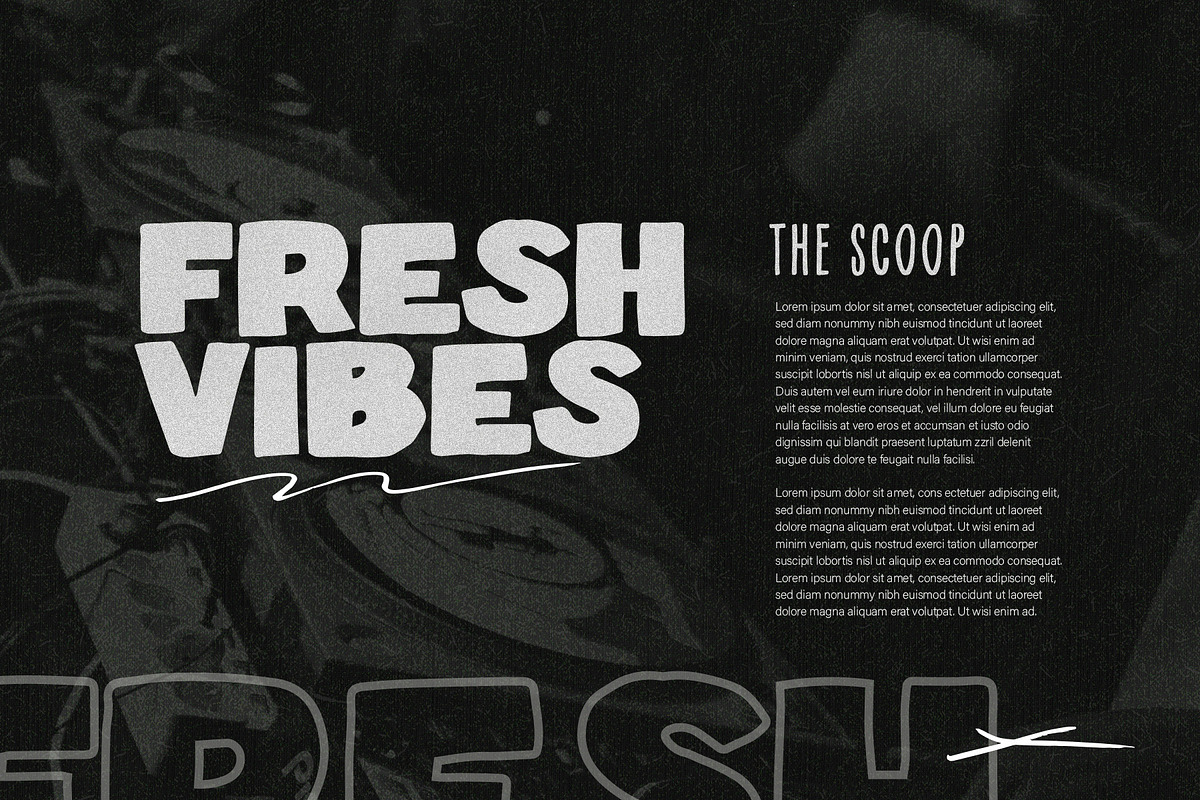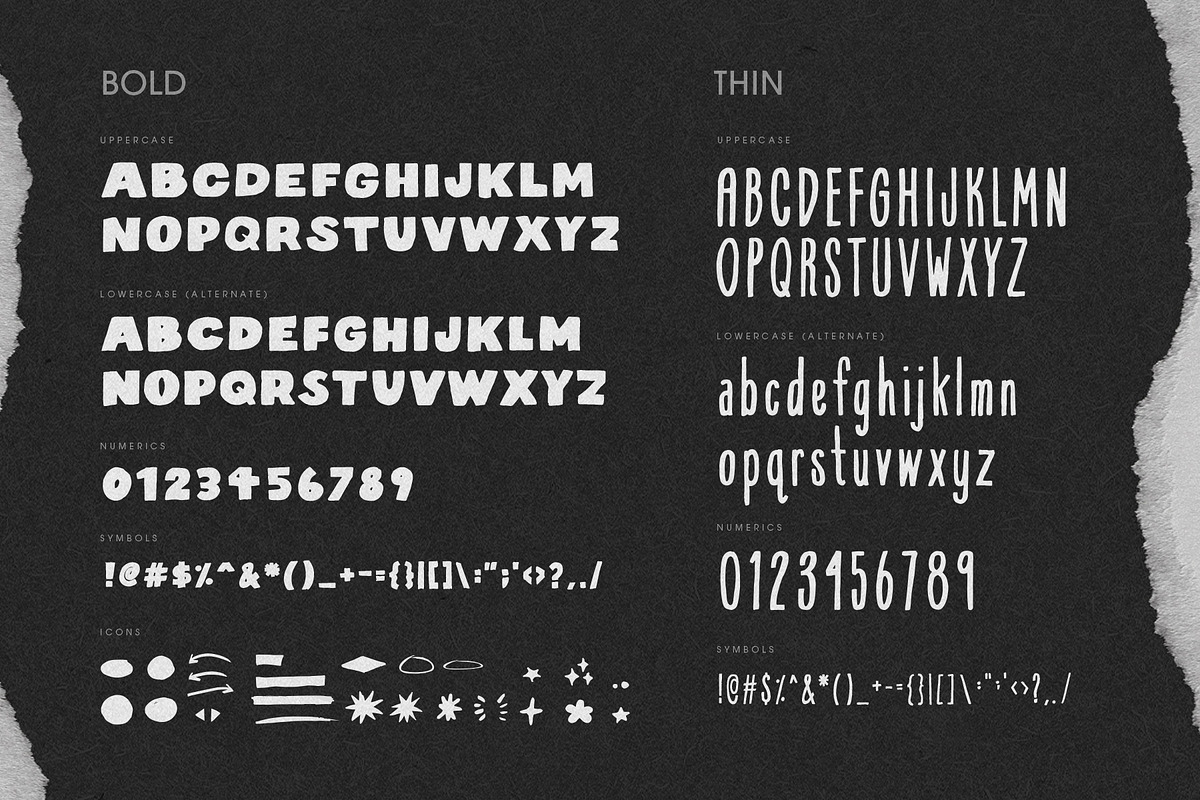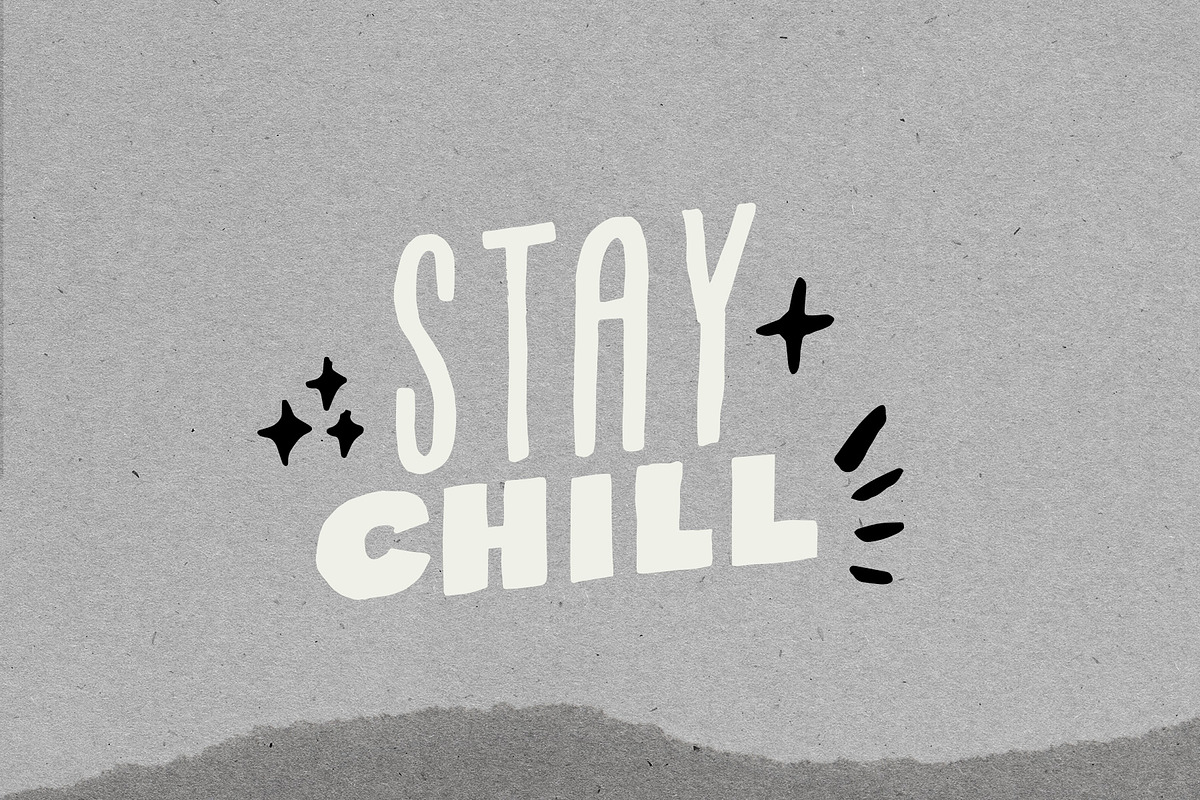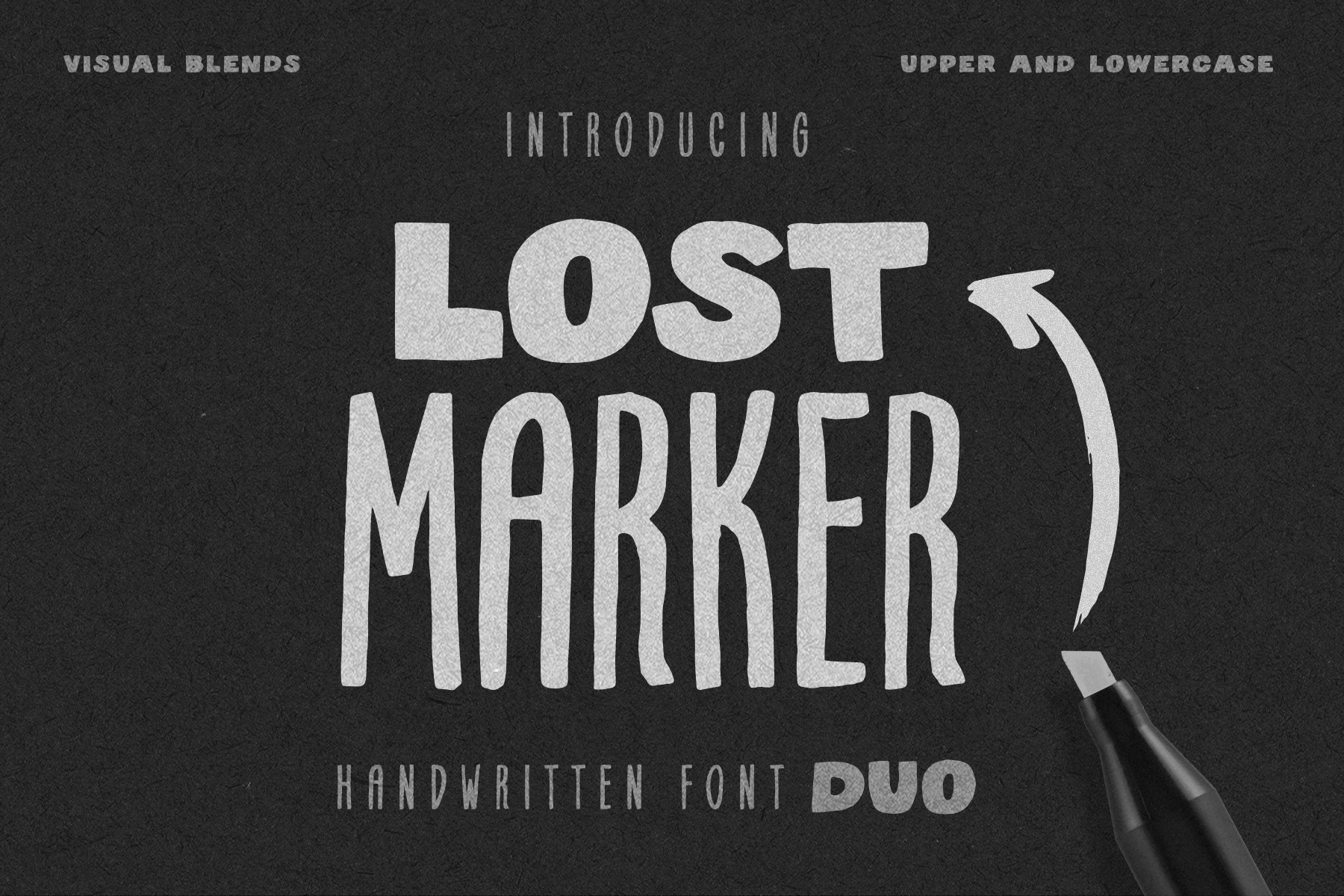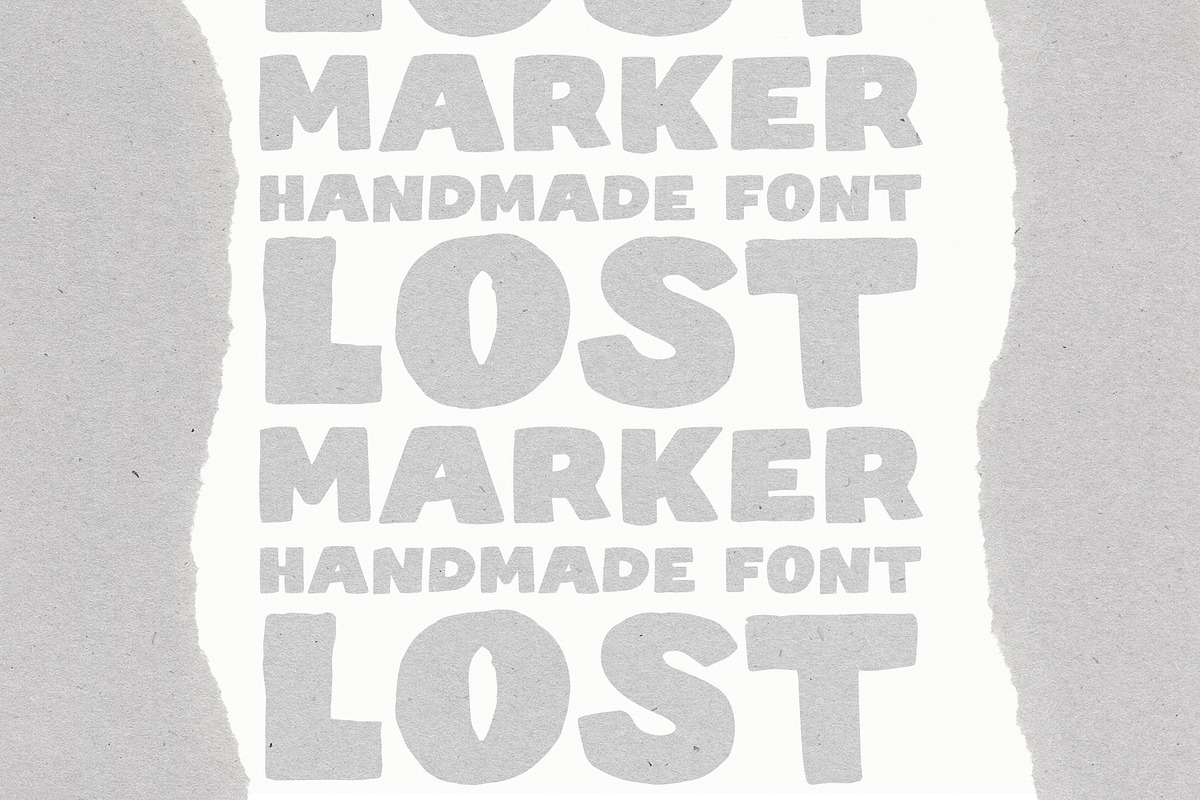
Lost Marker - Handwritten Font Duo
Introducing Lost Marker - Font Duo: A bespoke handwritten brush typeface created with sporadic characters and a touch of the unexpected.
Hit the streets and level up your designs with a thin/bold font that's infused with an urban aesthetic.
Lost Marker / Bold
- A boxy-bold handwritten display font great for headlines. Alternate between characters seamlessly with Upper/lowercase characters.
Lost Marker / Thin
- A slim-condensed handwritten font perfect for body copy. This version includes upper and lowercase characters.
Bonus Handmade Icons
- Includes supporting vector icons.